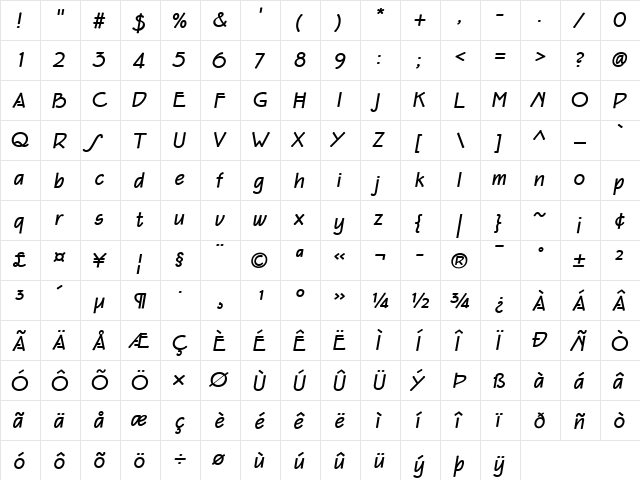
EaglefeatherInformal Italic
Design Context for EaglefeatherInformal Typeface
EaglefeatherInformal offers clean, dependable letterforms without strong stylistic allegiance, making it a practical choice for designers who need flexibility. Its italic angle brings a sense of urgency and motion to the letterforms.
Pro Tip: Try EaglefeatherInformal for annotation and caption copy alongside an upright companion — the contrast in angle creates a dynamic but ordered typographic system.